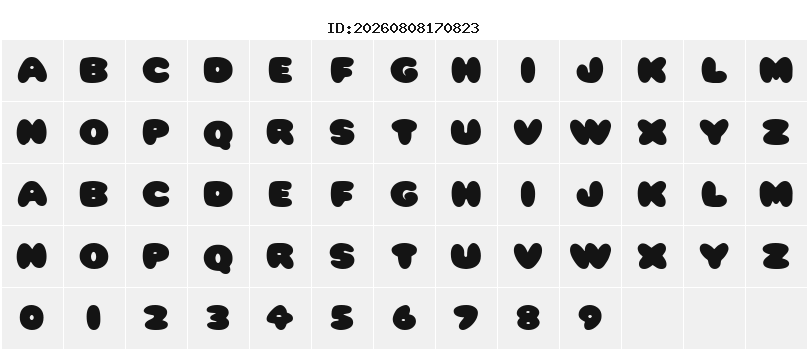
Pleasantly Plump Preview
• Font Name: Pleasantly Plump
About Pleasantly Plump.ttf
Pleasantly Plump.ttf is a modern, elegant sans-serif font designed for ultimate readability and visual harmony. Perfect for branding, headlines, web design, and print materials.